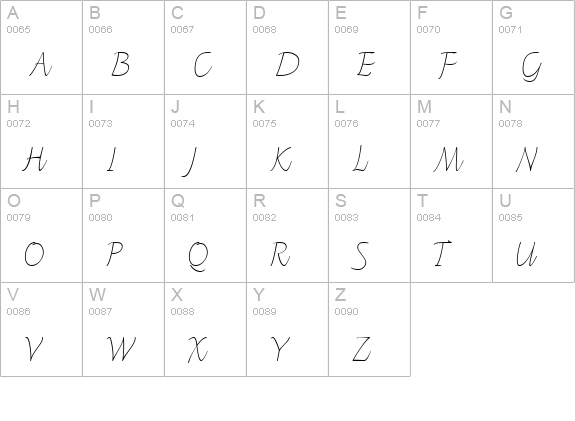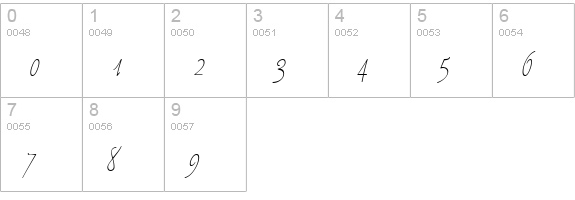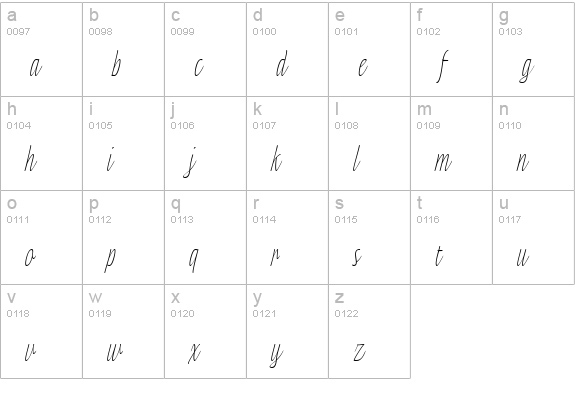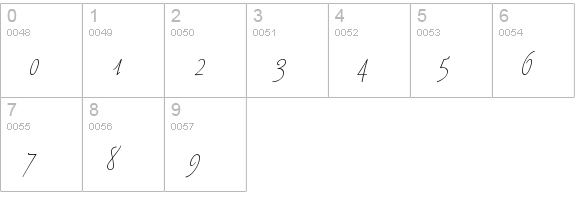
Fineline Micro Font Details
Introducing Fineline Micro font, a sleek and elegant typeface designed for those seeking a delicate and refined look in their designs. With its thin lines and minimalist style, Fineline Micro exudes sophistication and modernity, making it perfect for a wide range of projects, from branding to editorial design. This font is not only visually appealing but also highly versatile, allowing you to create beautiful typographic compositions with ease. Whether you're working on a logo, website, or print materials, Fineline Micro will add a touch of elegance and sophistication to your work. And the best part? Fineline Micro is completely free to download at FontsMarket.com, so you can start using it in your projects right away without any cost. Don't miss out on this opportunity to elevate your designs with the timeless beauty of Fineline Micro font.